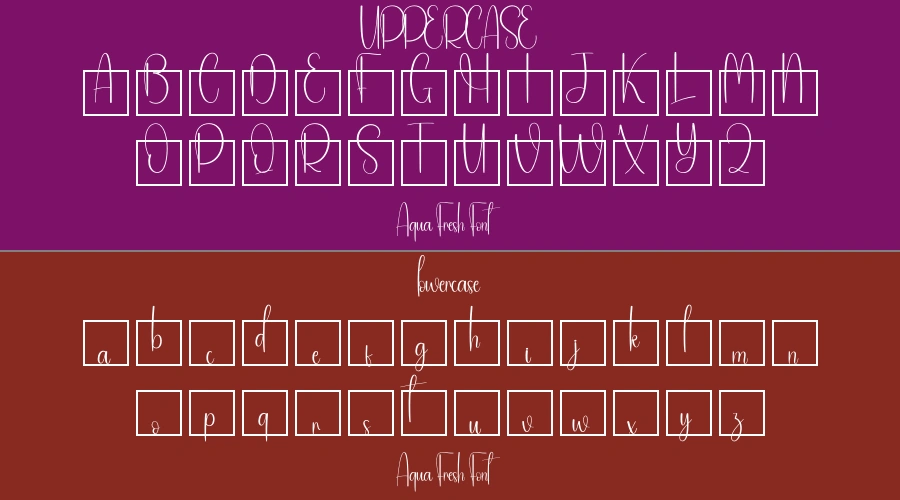
About Aqua Fresh Font
Aqua Fresh Font stands out for its distinctive combination of decorative alternates and originality. Ideal for annual reports, it provides the value and technical sophistication that professional projects demand. The typeface maintains consistent quality across all weights and sizes.
Key features include refined consistent strokes and practical currency signs, enhancing typographic expression. In academic theses applications, Aqua Fresh Font demonstrates exceptional memory recall. The stroke modulation and professional credibility contribute to its distinctive character and professional appeal.